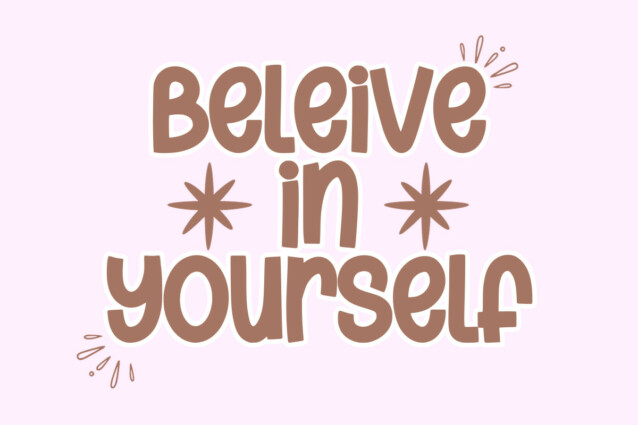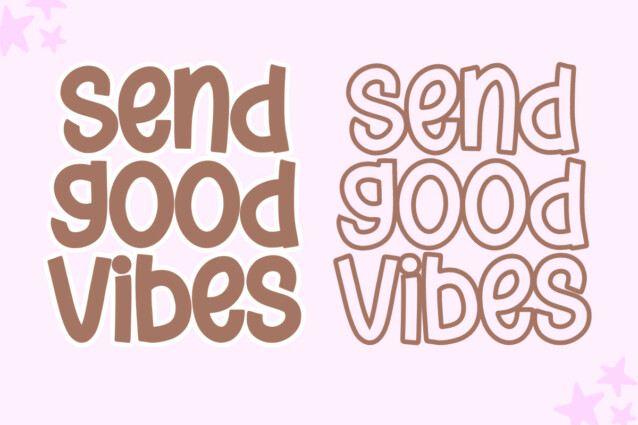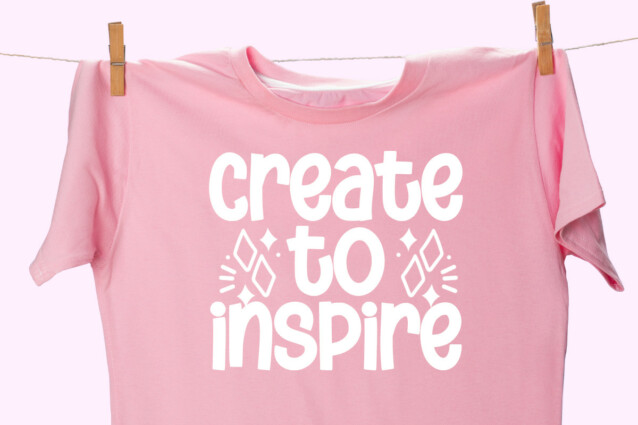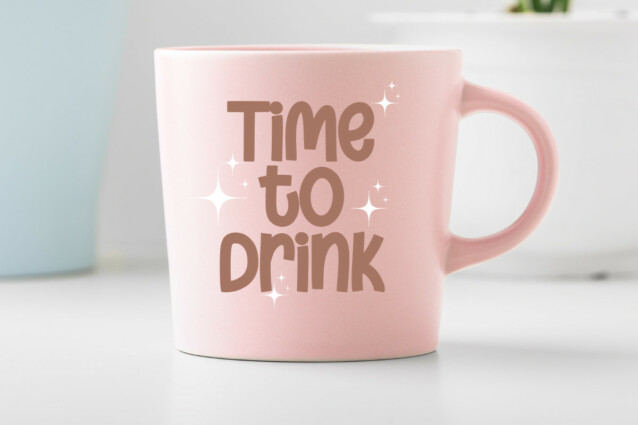
Layer Bolder Font
Layer Bolder Font is a Font with a modern style based on bold and minimalist shapes touched in a modern and elegant style. This font is very suitable for various creative needs such as printing, books, titles, headlines, photography, decoration, branding, logos, and others.